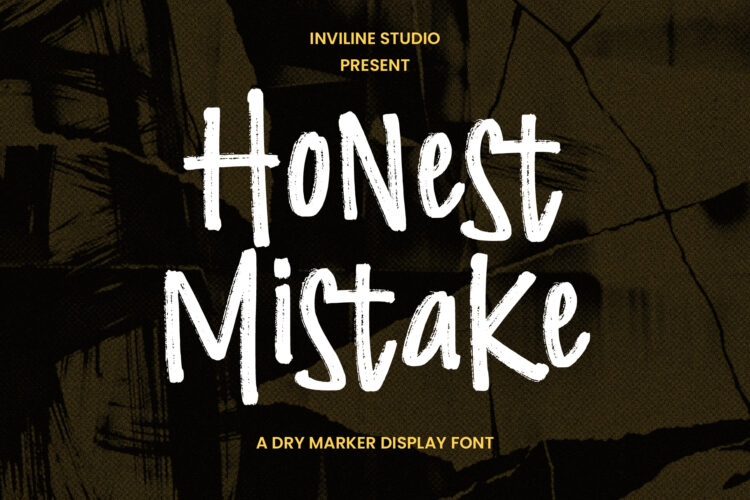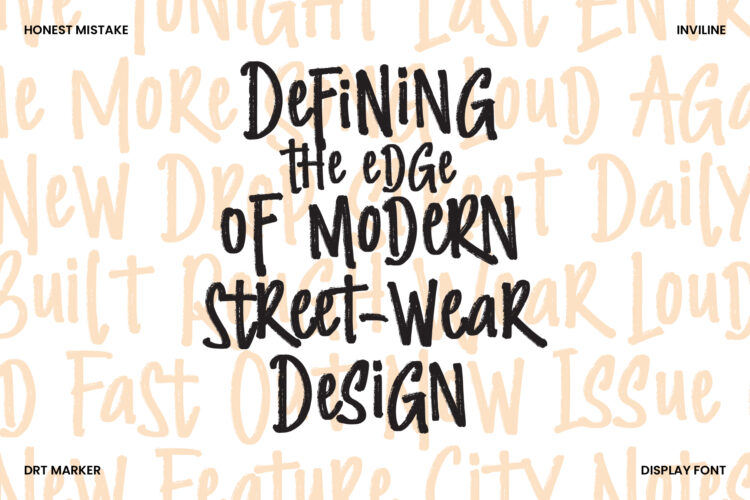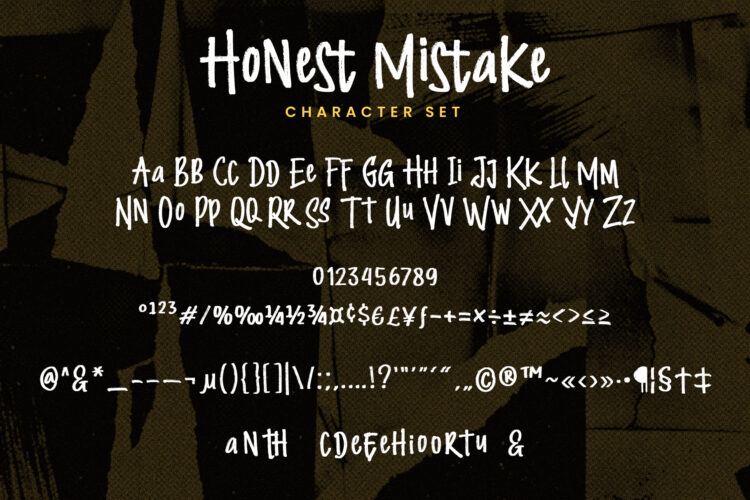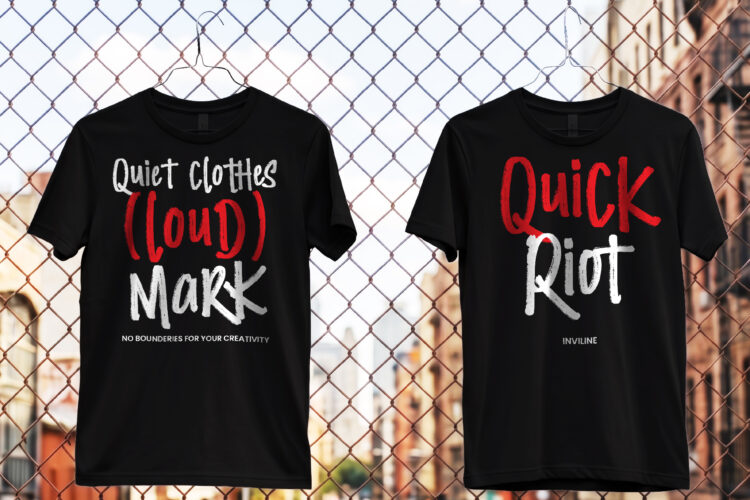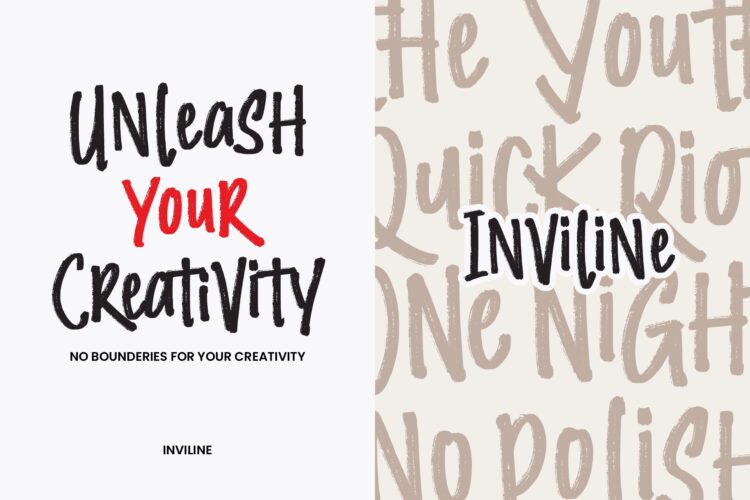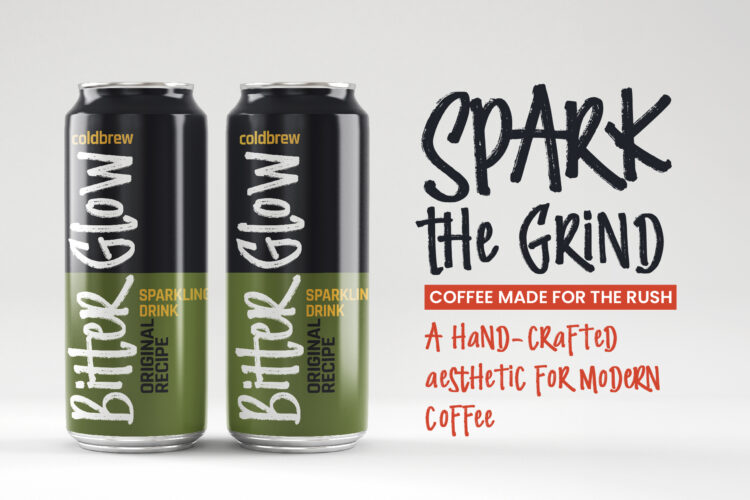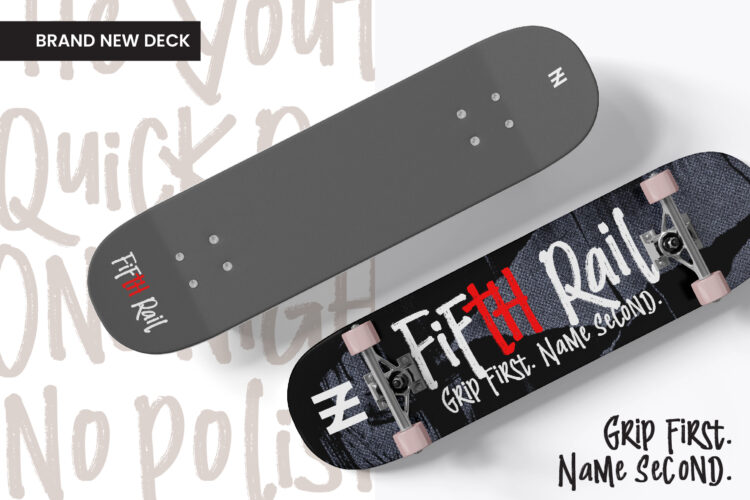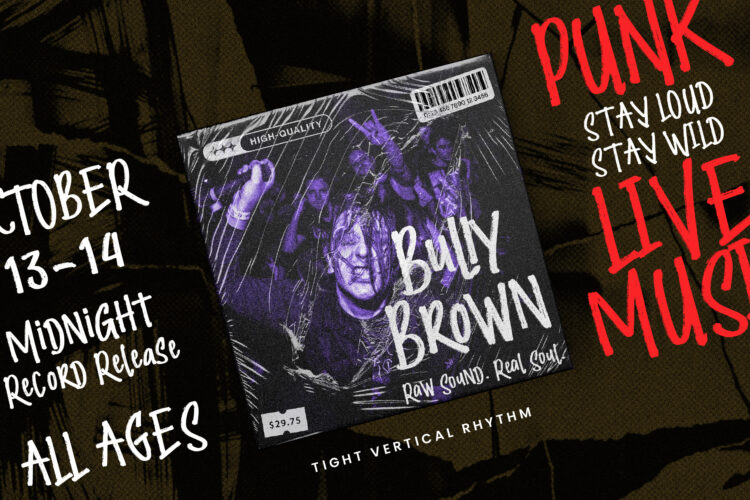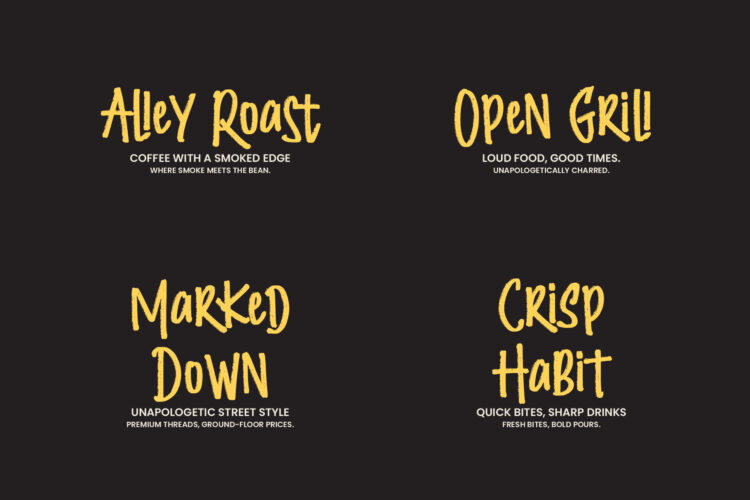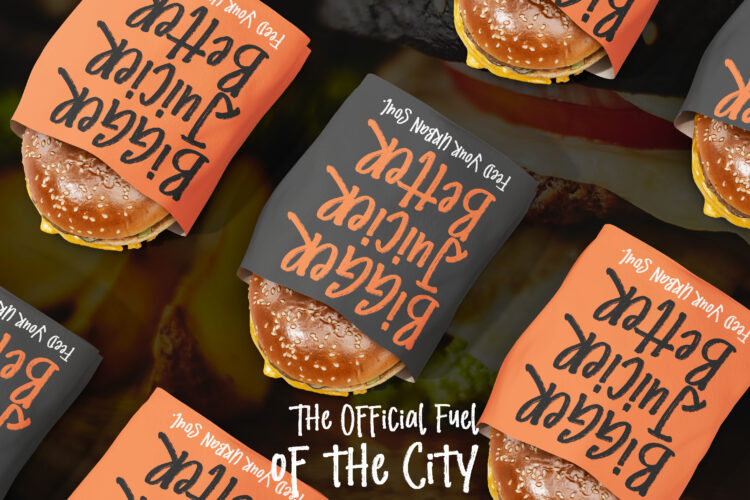
A raw, textured dry marker display font built for street-wear, urban branding, and anyone who wants their typography to feel genuinely gritty. No polish. Just impact.
Honest Mistake is a dry-erase typeface that intentionally displays its imperfections. Inspired by the raw energy of urban street culture, the draggy ink quality of thick markers, the spontaneity of uppercase and lowercase letters, and the graphic visual weight of handwritten streetwear, each letterform feels created in the moment, not manufactured.
It’s the font for your skate brand, your cold brew label, your band poster, your apparel drop, and any project where clean and polished is the wrong answer.
- OpenType alternates & ligatures (aNtH, CDeFEeHiooRTu, and more)
BEST FOR:
- Street-wear apparel & brand identity
- Skate deck graphics & action sports branding
- Cold brew, energy drink & urban beverage packaging
- Punk & alternative music posters & album art
- Urban food & restaurant branding
- Street food packaging & labels
- Social media content for lifestyle brands
- Zine, editorial & underground print work